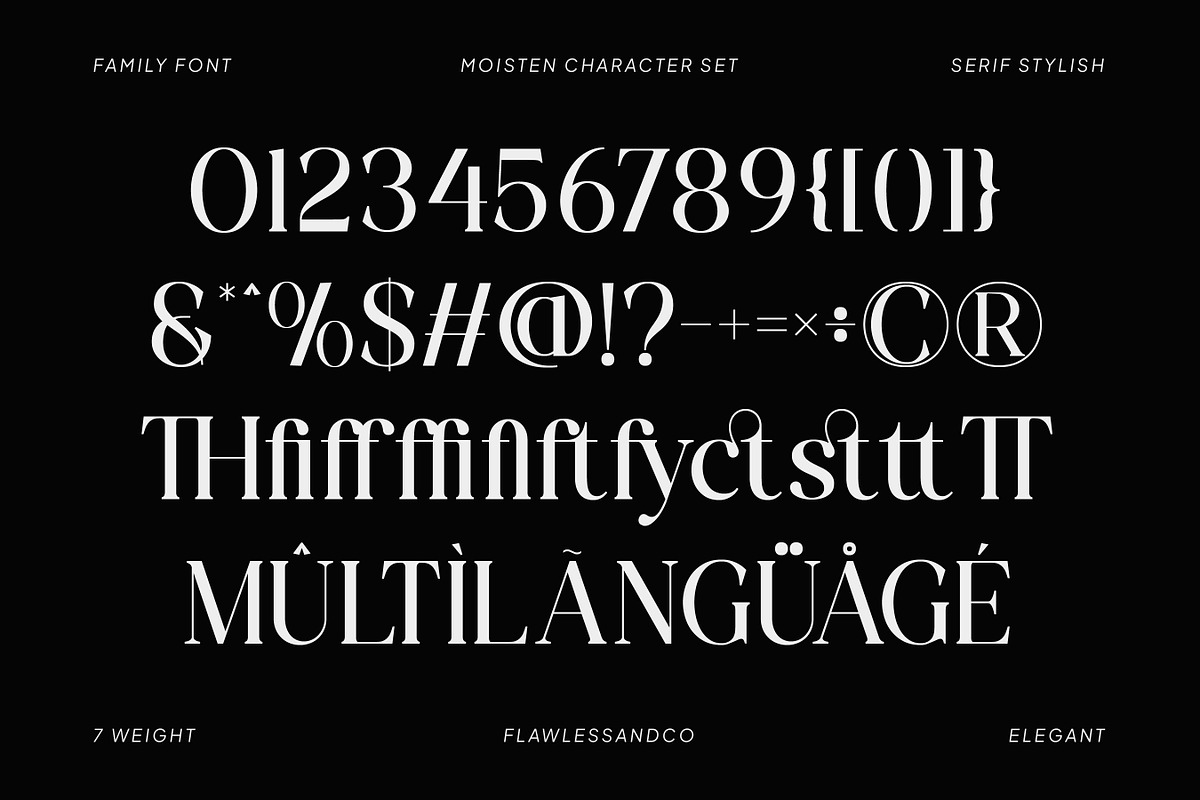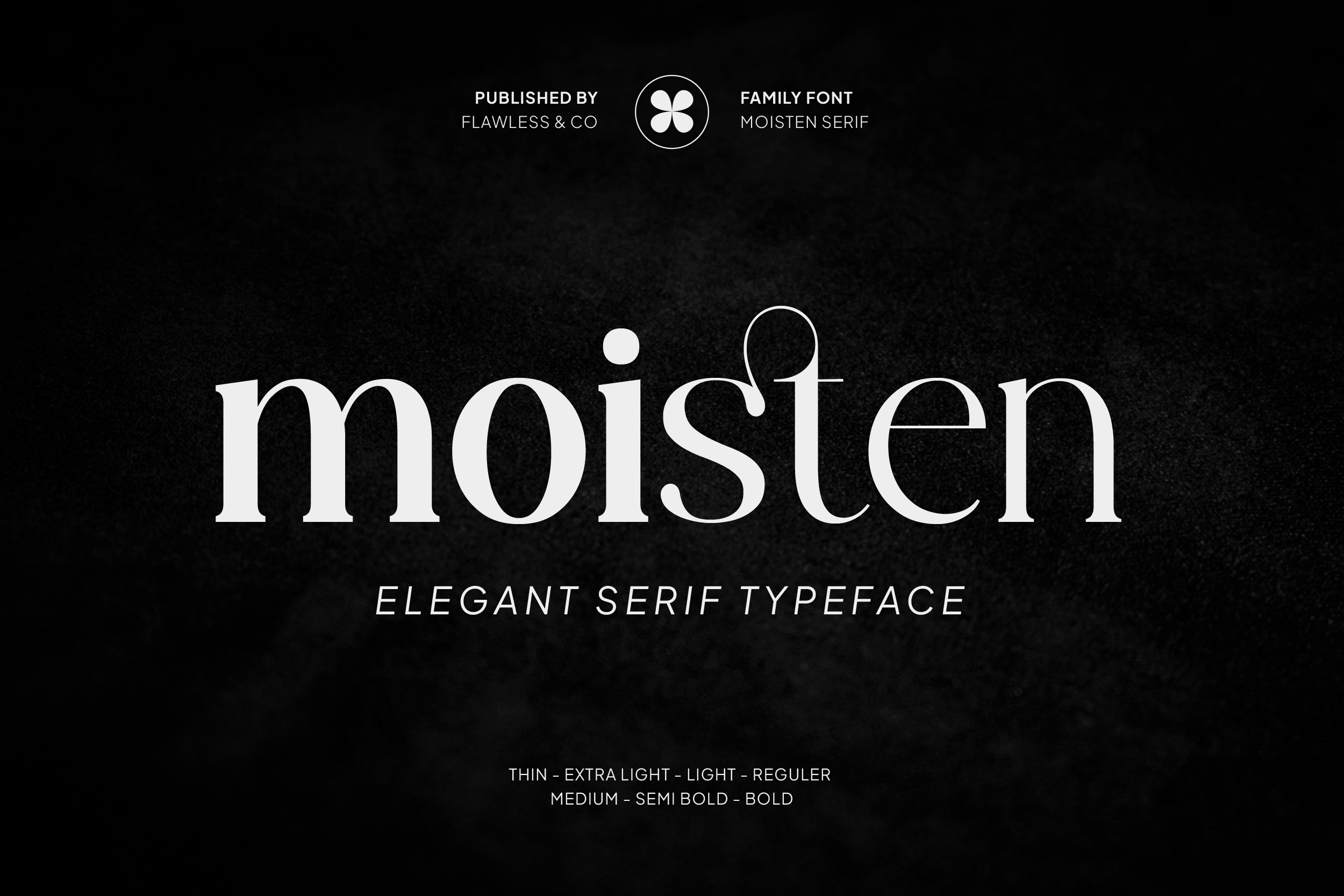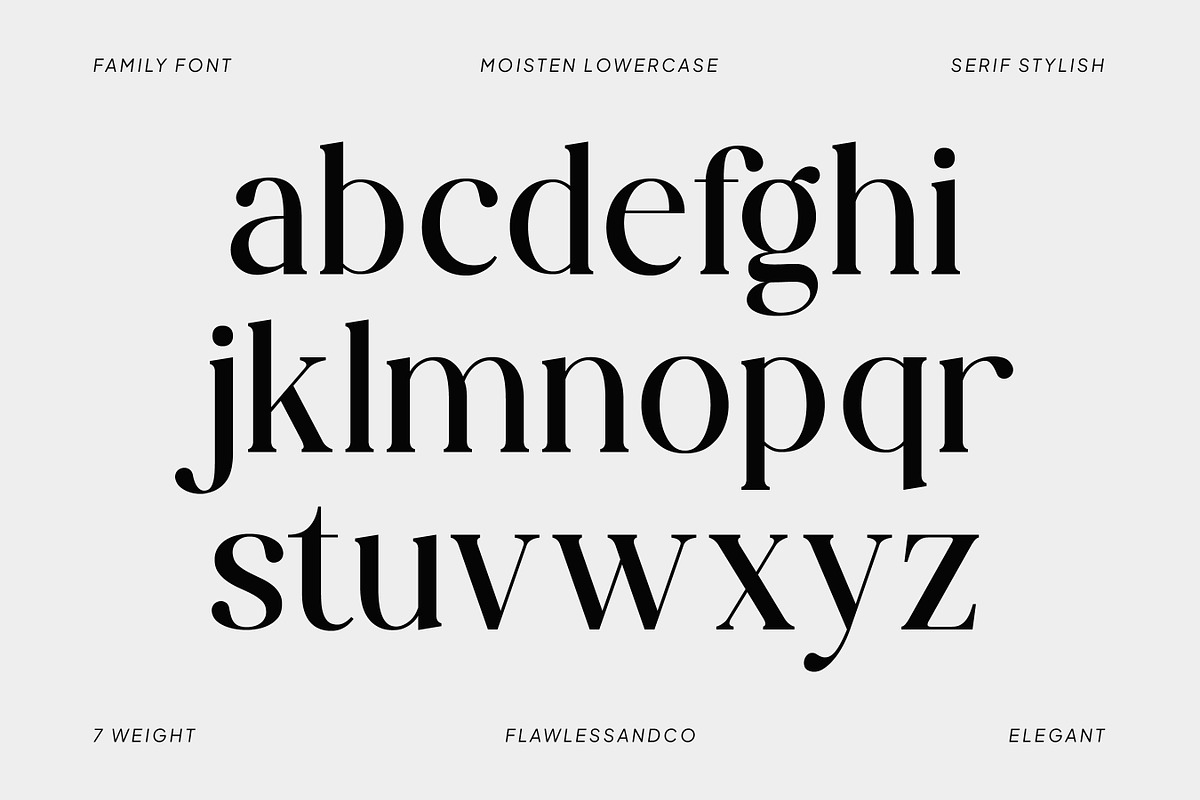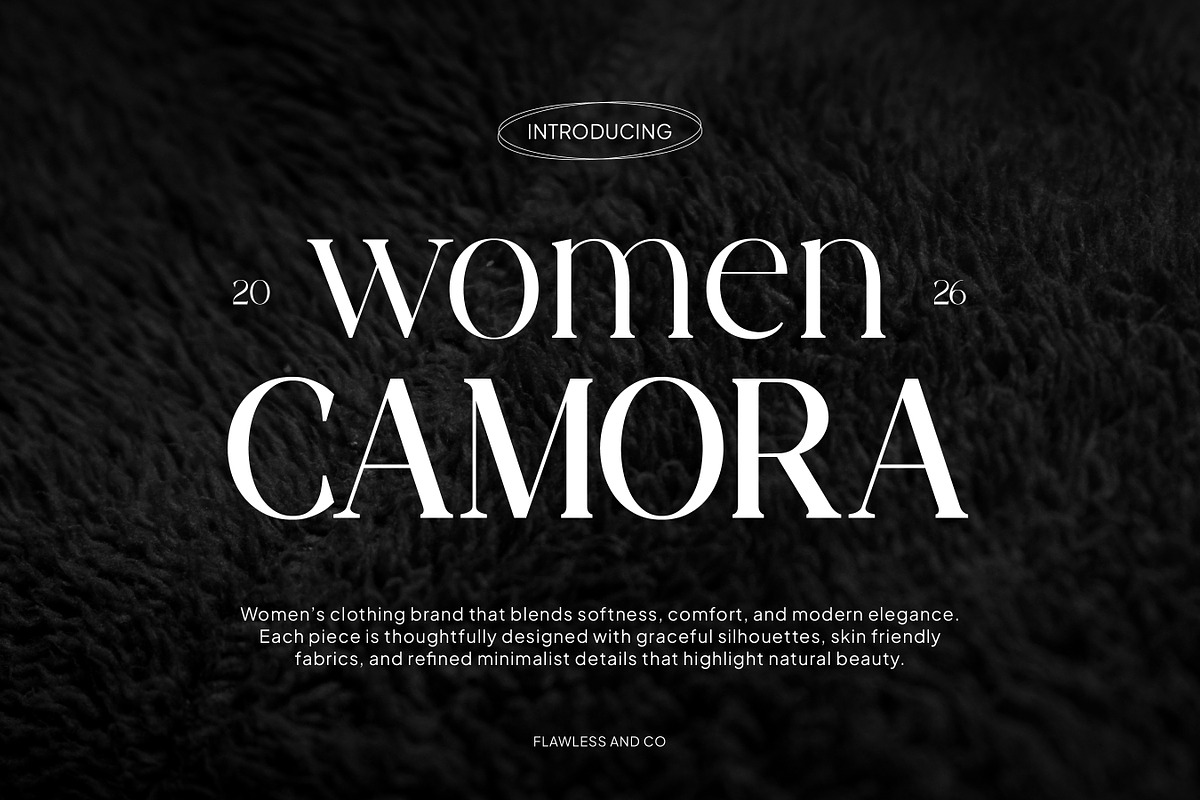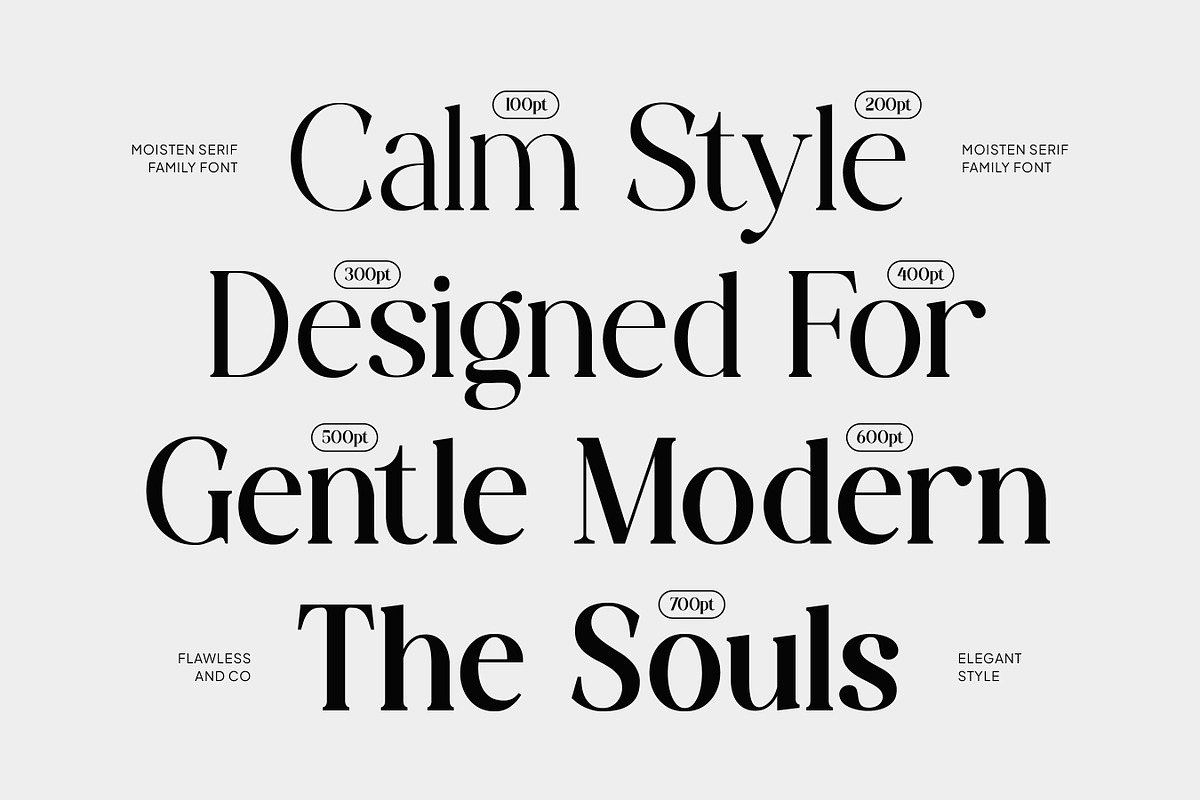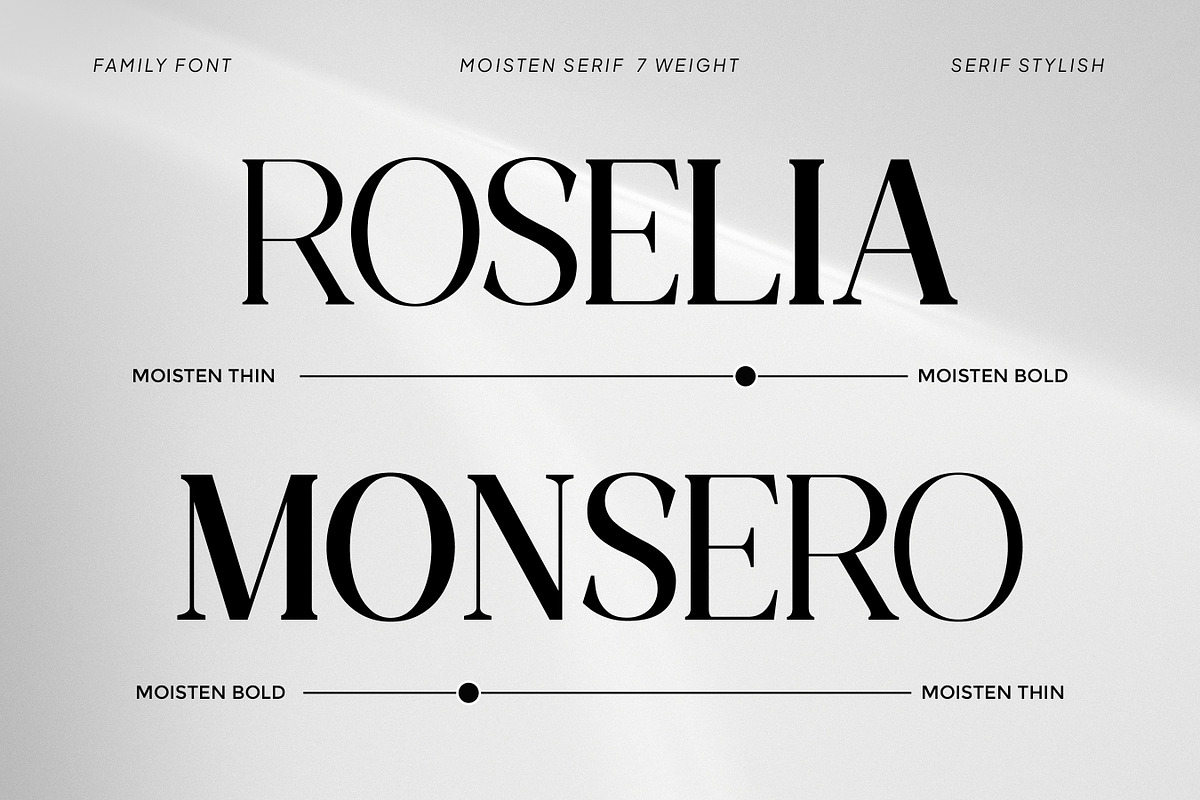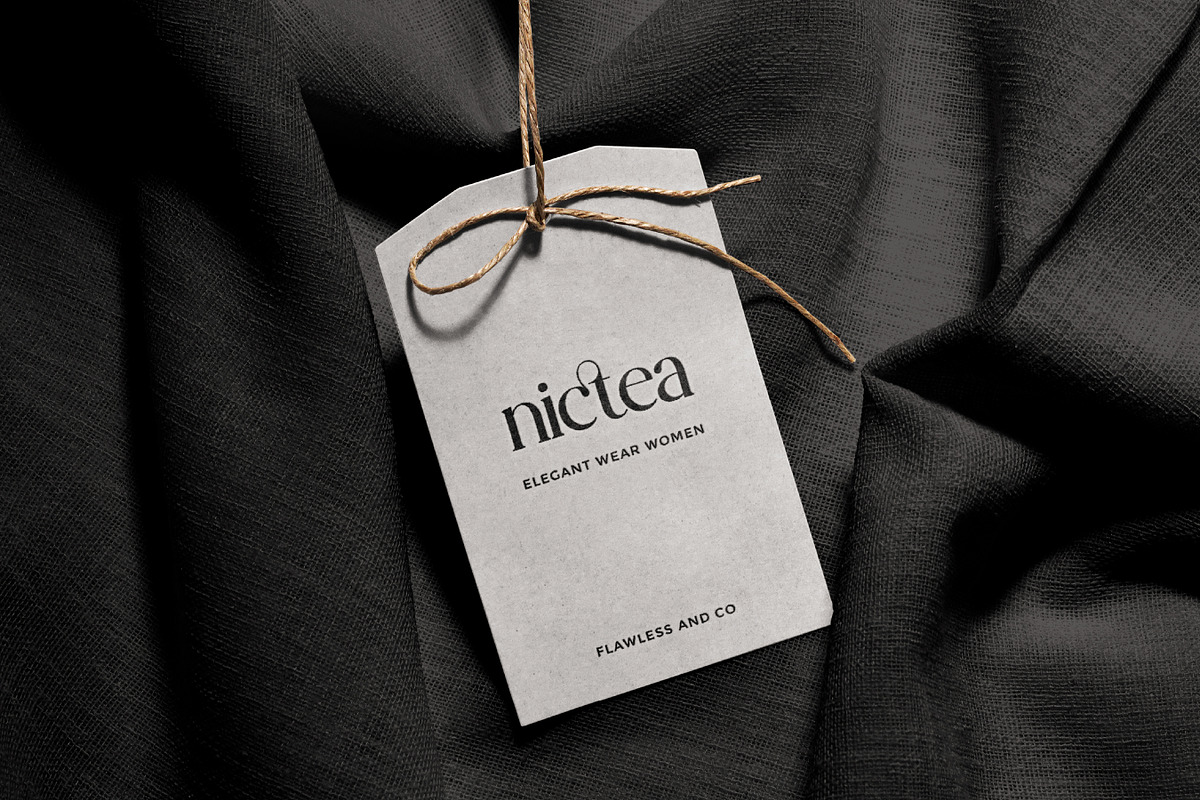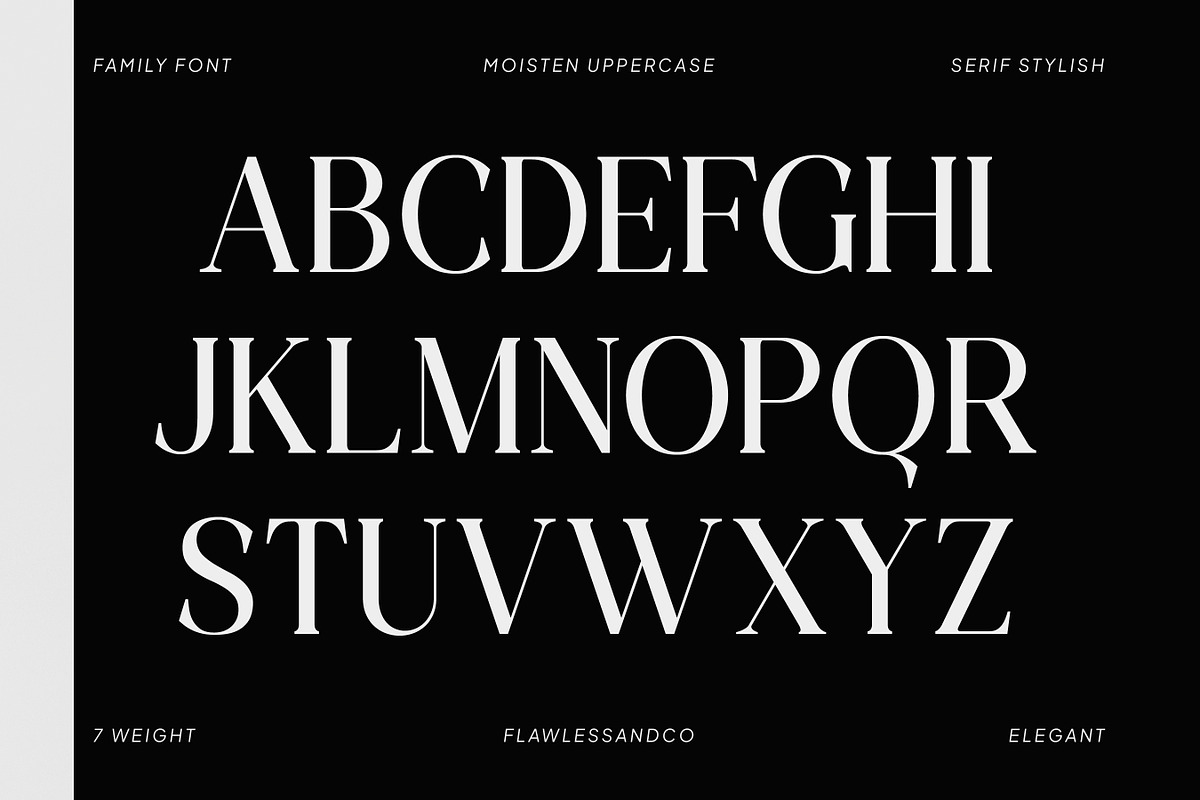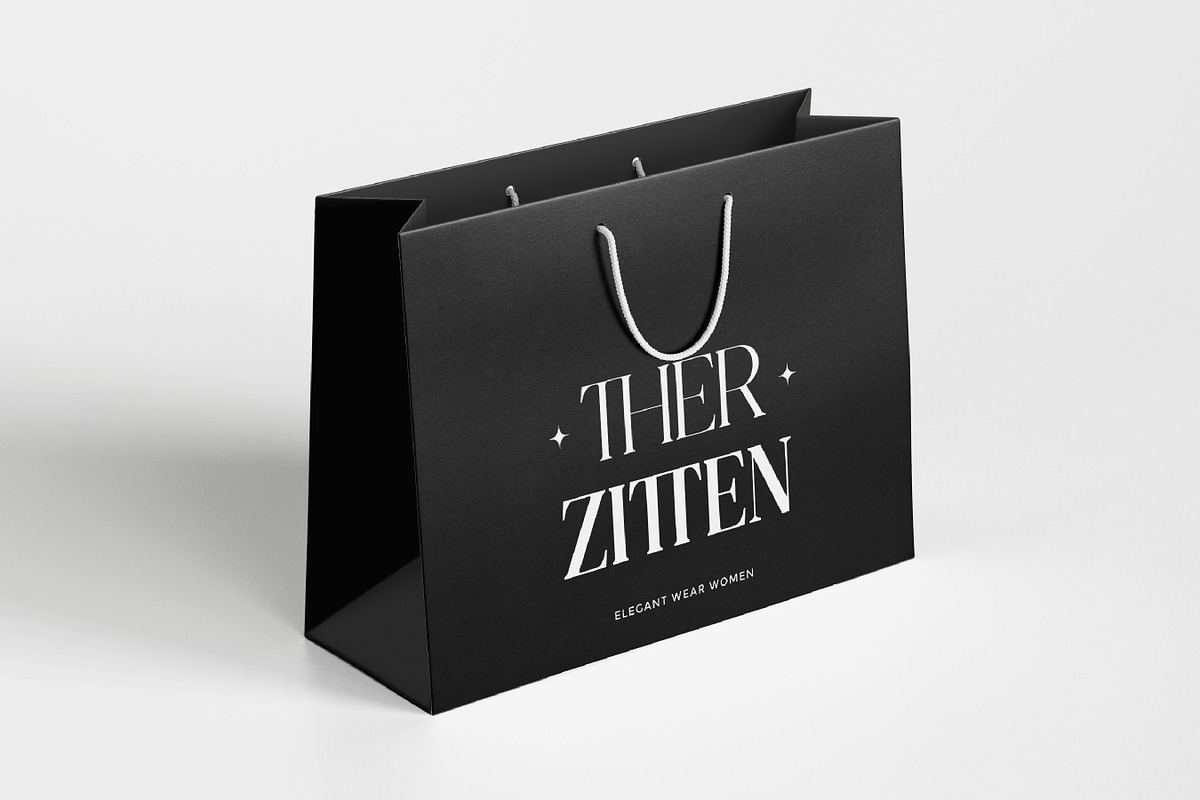
Moisten - Elegant Serif Family Font
Moisten – Elegant Serif Family Font
Moisten is a sophisticated elegant serif family font that combines modern refinement with timeless beauty. Designed with graceful letterforms, balanced proportions, and subtle contrast, Moisten brings a luxurious and polished aesthetic to any design. Its elegant structure allows it to shine in both bold headlines and refined text compositions, making it a versatile choice for creative professionals. With its carefully crafted details and harmonious style, Moisten adds a sense of prestige and elegance to visual identities.
- Multiple Weights (Thin to Bold)
Who Should Use Moisten?
Moisten is perfect for designers, brands, and creatives who want to convey elegance, luxury, and modern sophistication in their work. It is especially suitable for projects that require a refined and professional typographic presence.
Suitable For:
- Luxury brand identities and logos
- Fashion and beauty branding
- Editorial design and magazine titles
- Elegant product packaging
- Wedding invitations and stationery
- Website headers and digital branding
- Social media visuals with a premium feel
- High-end marketing materials